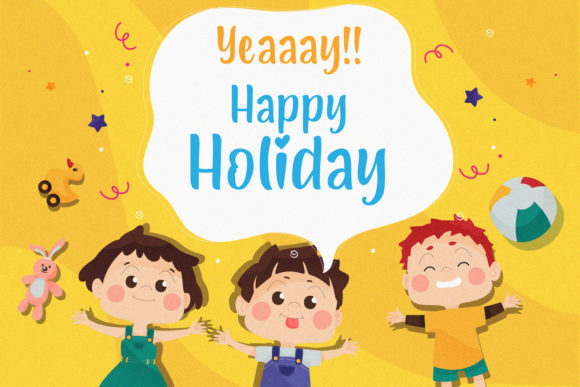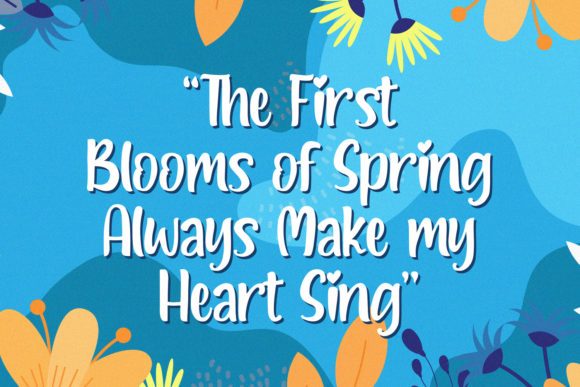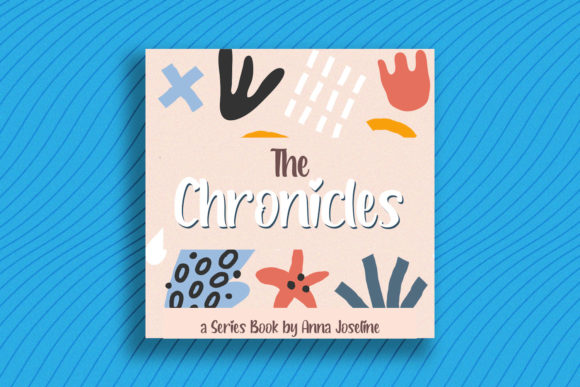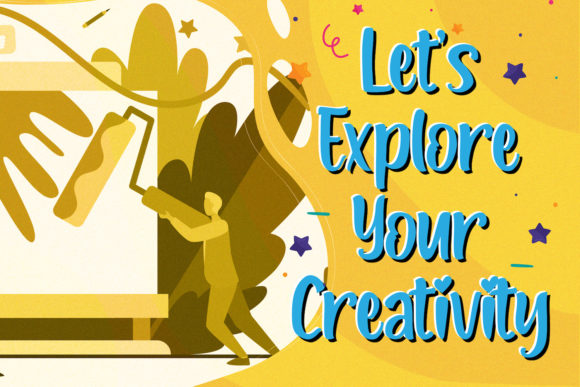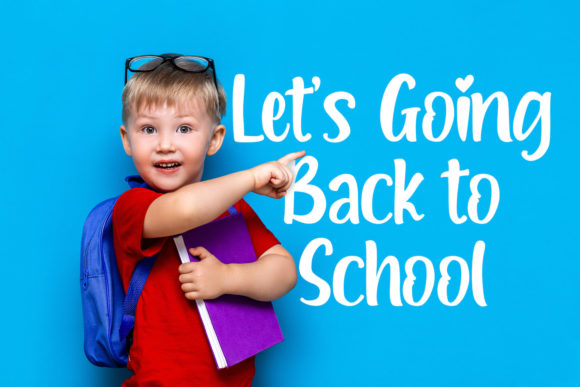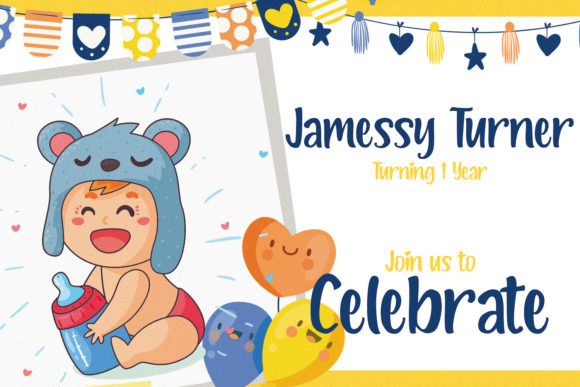
Lovely Kids Font – Free Download
Introduction to Lovely Kids Font
Lovely Kids embodies fun, quirkiness and authenticity.
This playful display font will take your designs to the next level with itโs unique look Lovely Kids is the perfect fit for all of your logos, branding, social media, and crafty DIY projects.
Key Features of Lovely Kids Font
Why Choose Lovely Kids Font?
Lovely Kids Font offers exceptional quality and versatility, making it a valuable addition to your design toolkit. Whether you’re creating for personal projects or commercial use, Lovely Kids Font delivers professional results.